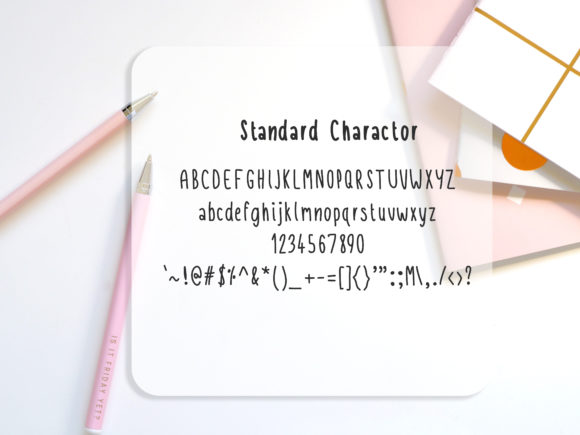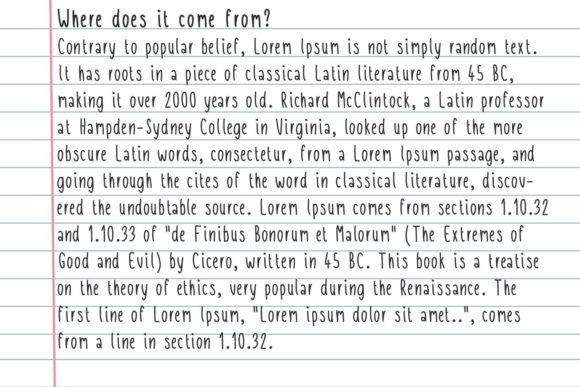
Introduction to Orangano Font
Do you remember that moment when a single design element can elevate your entire creative project? For many of us, it’s the little things that make all the difference. Whether it’s a vibrant color scheme or an exquisite font, the right combination can transform a design from good to great.
That’s where the Orangano Font comes in – a stunning addition to any design resource. Its natural and unique style makes it incredibly versatile, perfect for a wide range of creative projects. From blog posts to social media graphics, this font is sure to add a touch of warmth and personality to your work.
What sets the Orangano Font apart is its high quality and ease of use. With a transparent background, it’s perfect for designers who want to add a subtle yet eye-catching element to their designs. And the best part? It’s available for free download, making it an invaluable resource for designers of all levels.
Key Features of Orangano Font
- High-quality design resource ideal for creative projects and designs
- Comes with a transparent background, making it versatile for various design needs
- Includes a range of glyphs and characters for extensive use in creative projects
- Designed to be used at high resolutions, ensuring clear and crisp display in various sizes
- Supports various font sizes, from small to large, making it suitable for various design applications
- Perfect for designers looking for a unique and creative font for their next project
Honest Review: Orangano Font
As a designer, I’m always on the lookout for high-quality design resources to elevate my creative projects. The Orangano Font has caught my attention, and I’m excited to share my thoughts on this font.
- ✨ Unique design: The Orangano Font boasts a distinctive and modern design that’s perfect for making a statement in any project.
- ✨ High-quality glyphs: The font includes a wide range of glyphs, ensuring that you have everything you need to bring your ideas to life.
- ✨ Transparent background: The Orangano Font comes with a transparent background, making it easy to integrate with any design without worrying about distracting backgrounds.
- ⚠️ Limited language support: While the font includes a wide range of glyphs, it may not be suitable for projects that require extensive language support.
- ⚠️ Not ideal for small text: The Orangano Font is best suited for large-scale designs, as the lines can become blurry when used for small text.
Overall, I’m impressed with the Orangano Font’s potential to elevate my creative projects. While it may not be perfect, its unique design and high-quality glyphs make it a valuable addition to my design resource library. I appreciate that it’s available for free download, making it an accessible option for designers of all levels.
How to Use Orangano Font
The Orangano Font is a versatile design resource that offers a unique and creative solution for various projects. With its transparent background and high-quality design, it’s perfect for adding a touch of elegance to your work.
Getting the Most Out of Orangano Font
To get the most out of the Orangano Font, use it in creative projects where you need a unique and elegant touch. It’s perfect for designing logos, business cards, and other marketing materials.
The Orangano Font is commonly used in:
- Business card design
- Branding
Can I use the Orangano Font with a transparent background?
Yes, the Orangano Font is designed to be used with a transparent background, making it perfect for designs that require a high level of customization and flexibility. You can easily combine it with other design elements and backgrounds to create a unique and eye-catching visual identity for your project.